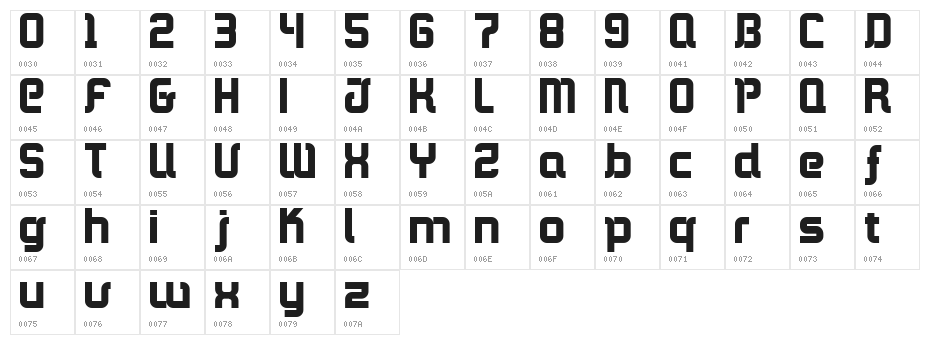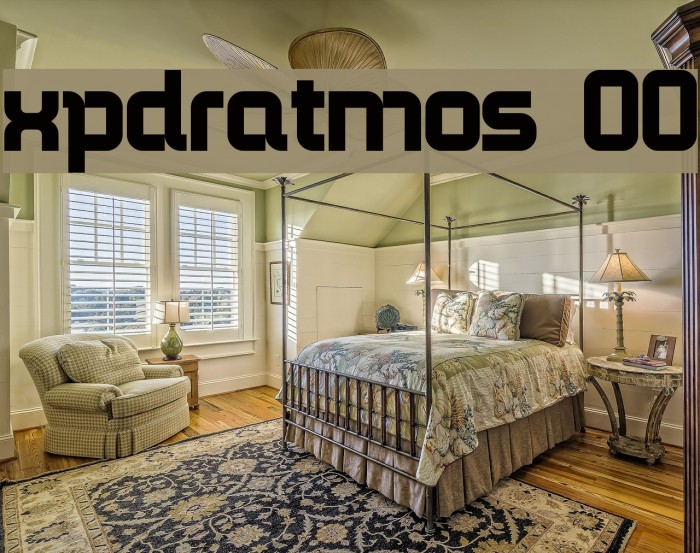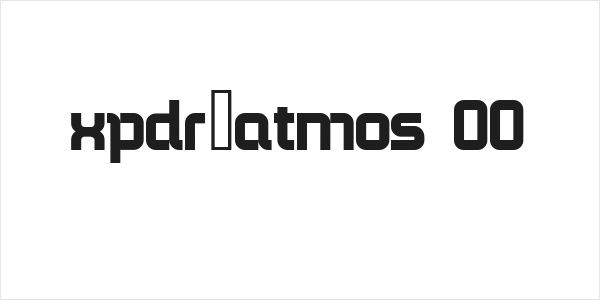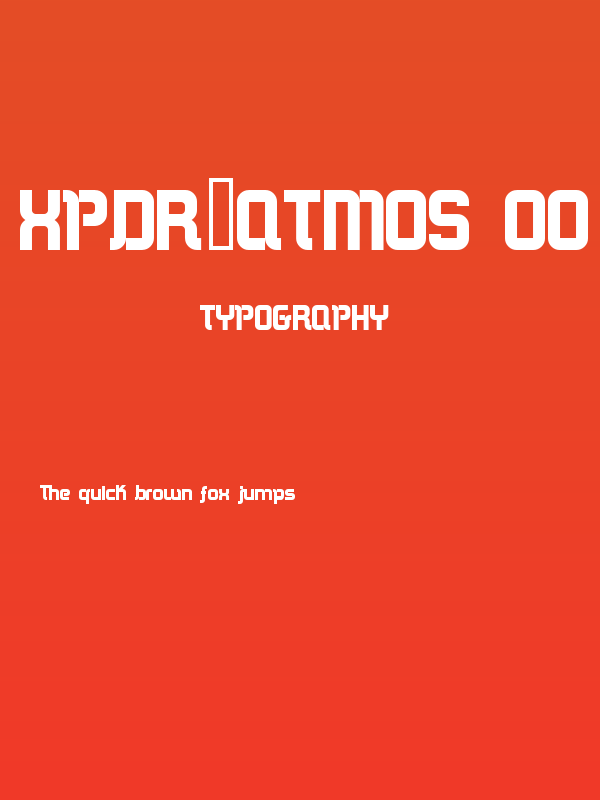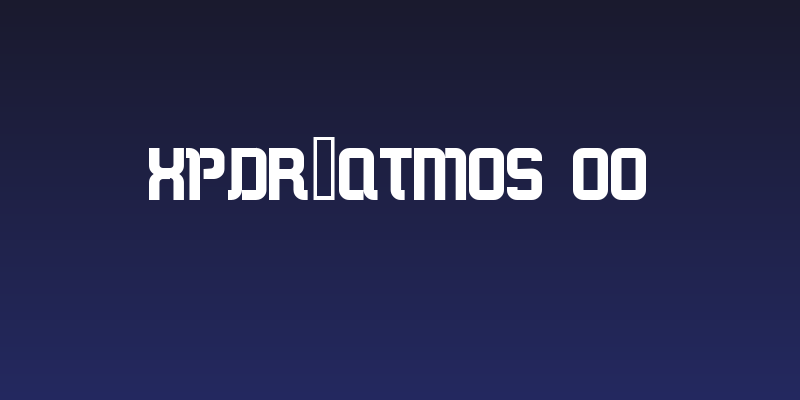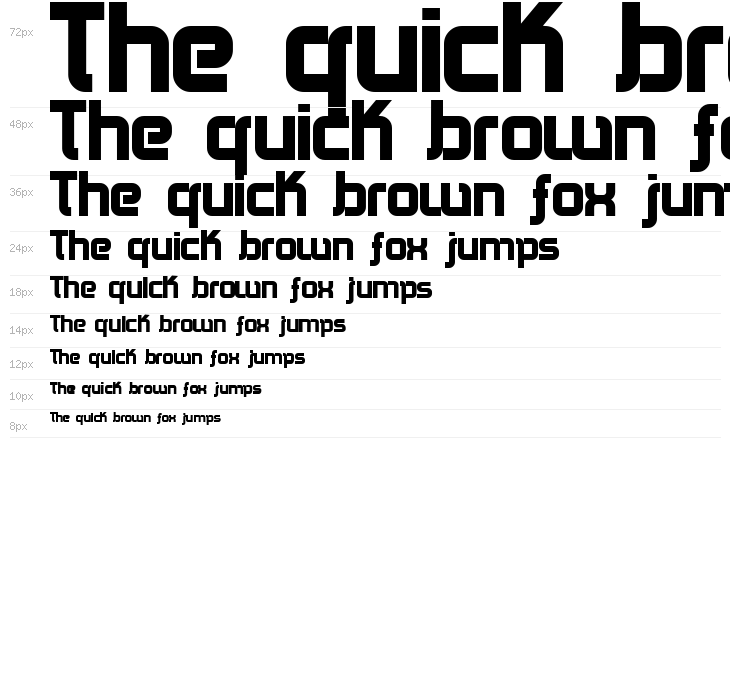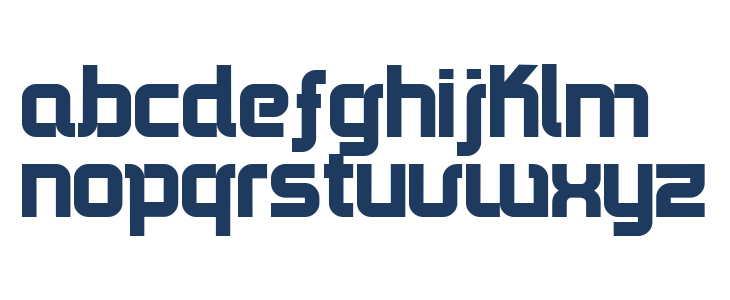
xpdr_atmos 00 Font
xpdr_atmos 00 Description
This font features a bold, geometric design with a futuristic and modern aesthetic. The characters are constructed with thick, uniform strokes and rounded corners, giving them a distinct, blocky appearance. The uppercase and lowercase letters maintain a consistent style, with a strong emphasis on horizontal and vertical lines. Numbers and special characters follow the same design principles, ensuring a cohesive look across all glyphs. The font's unique style makes it stand out, suitable for projects that require a modern and tech-savvy feel.
| Proposed Projects | Ideal for technology branding, sci-fi themed designs, video game interfaces, and modern posters. |